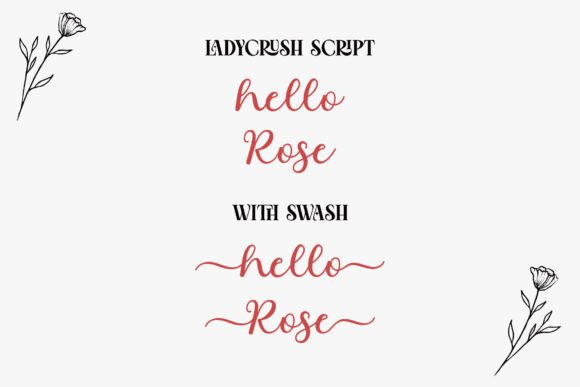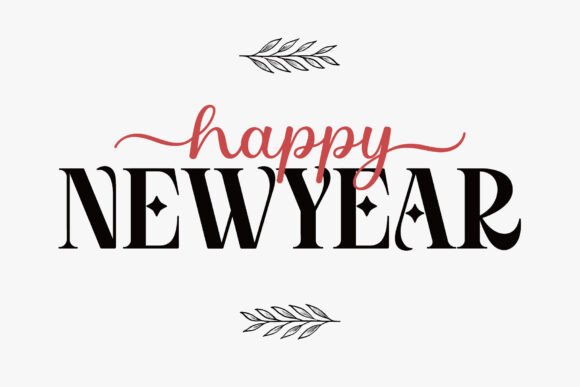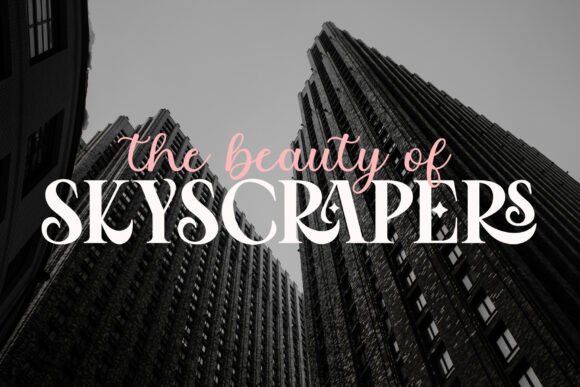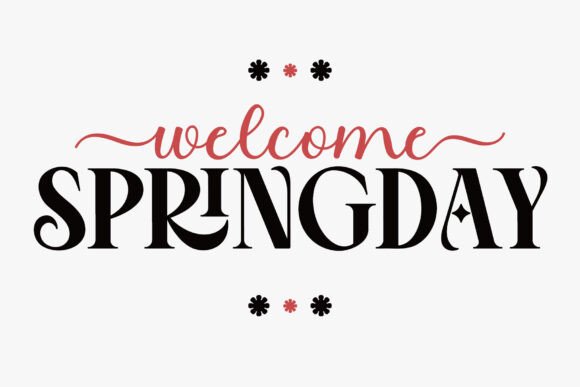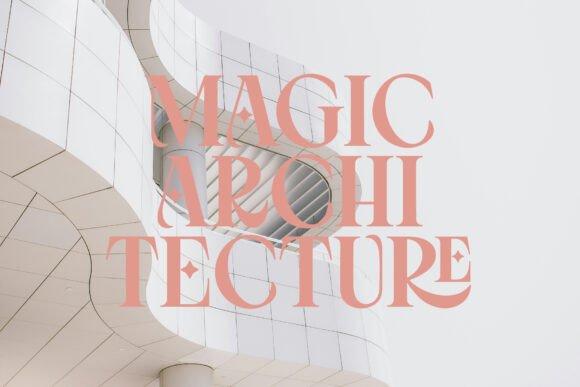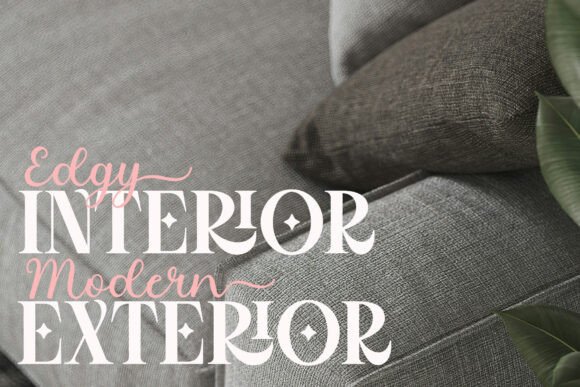
Introduction to Lady Crush Font
Lady Crush is a modern and elegant font duo that combines a graceful handwritten script with a bold all-caps serif display.
The contrast between its flowing tail swashes and refined serifs makes it perfect for feminine branding, upscale packaging, wedding designs, and editorial headers Whether used solo or as a pair, Lady Crush brings luxury and personality to every project.
Key Features of Lady Crush Font